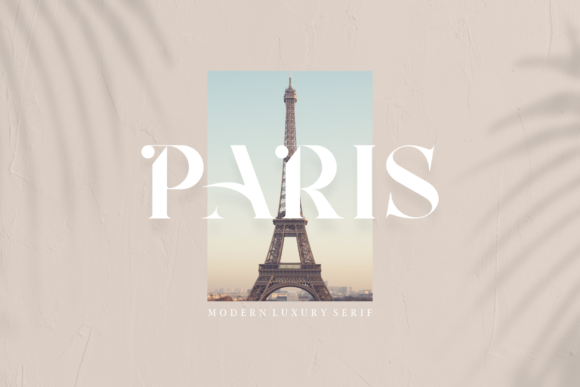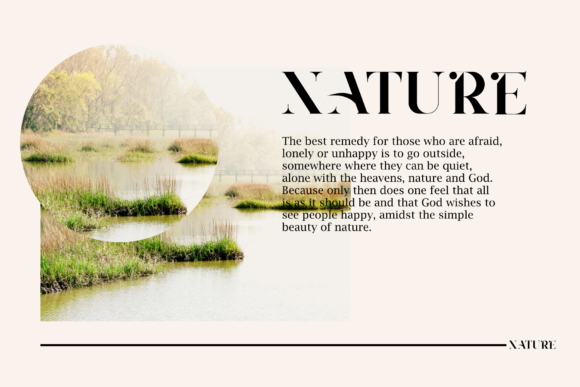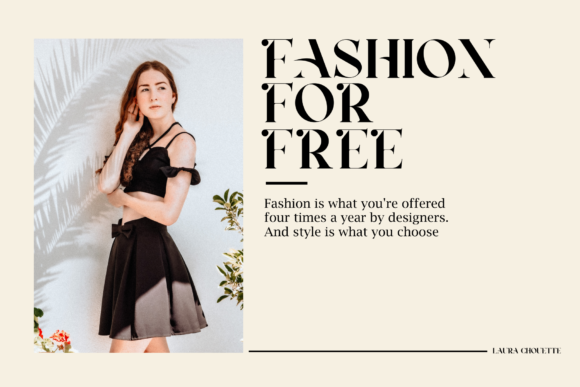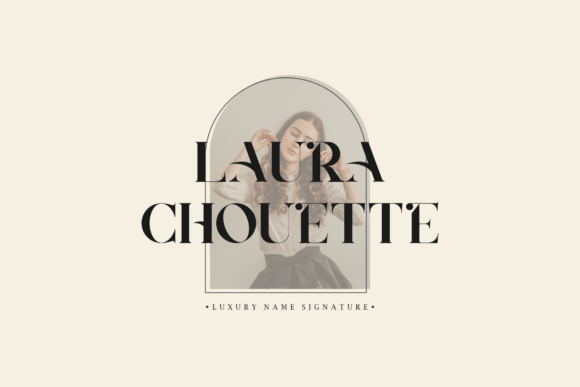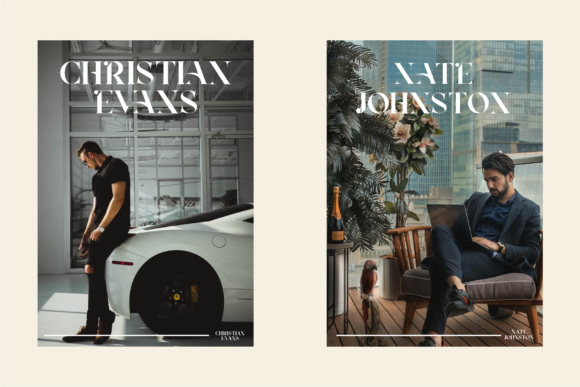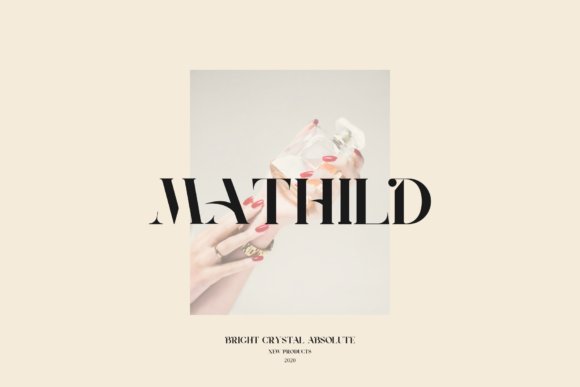
Introduction to Rucas Font
Rucas is a luxurious serif font.
This font will perfect for many project: fashion, magazines, logo, branding, photography, invitations, wedding invitation, quotes, blog header, poster, advertisements, postcard, book, websites, etc .